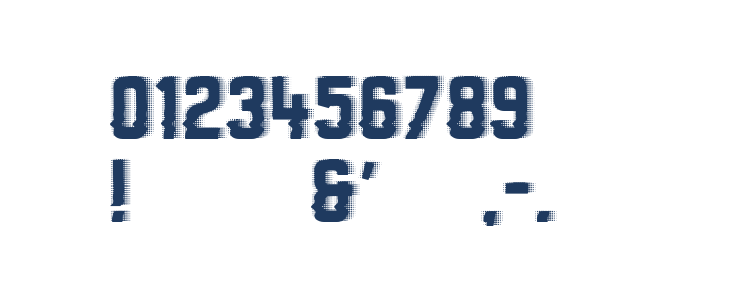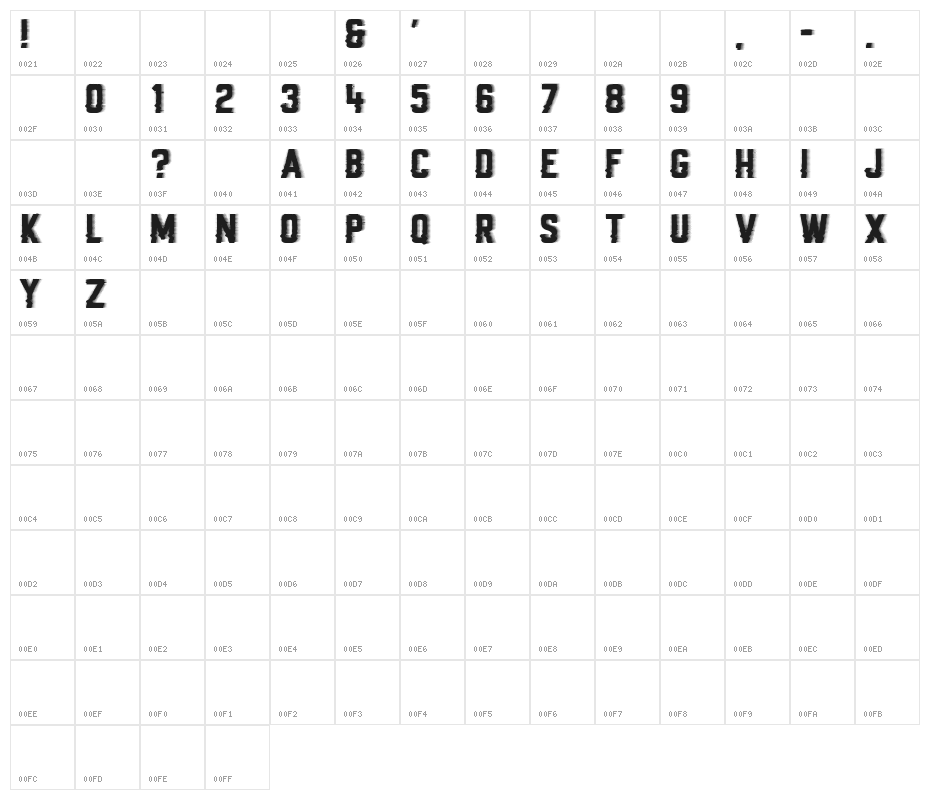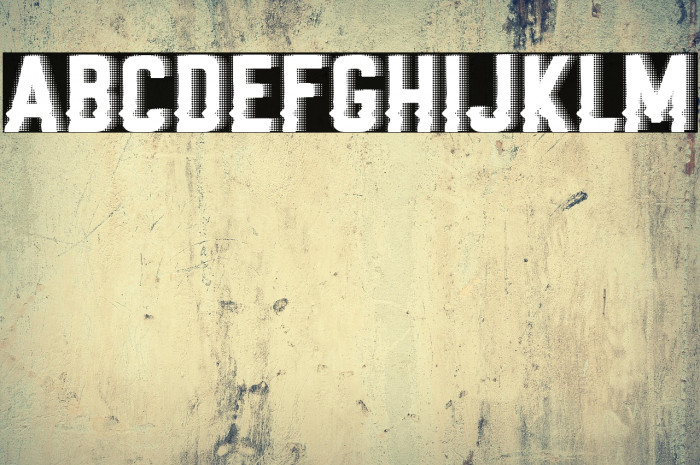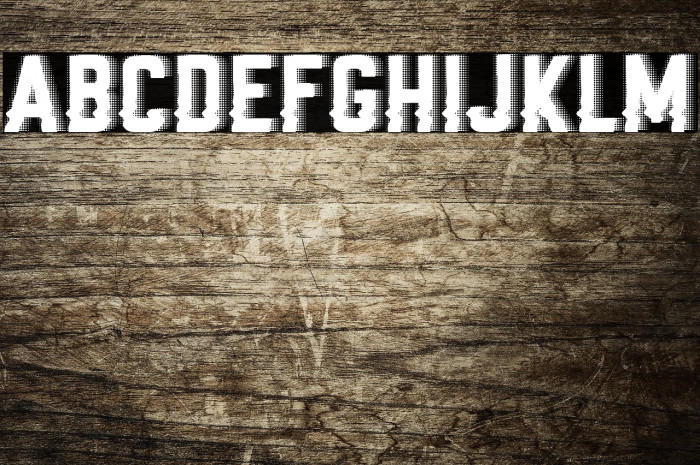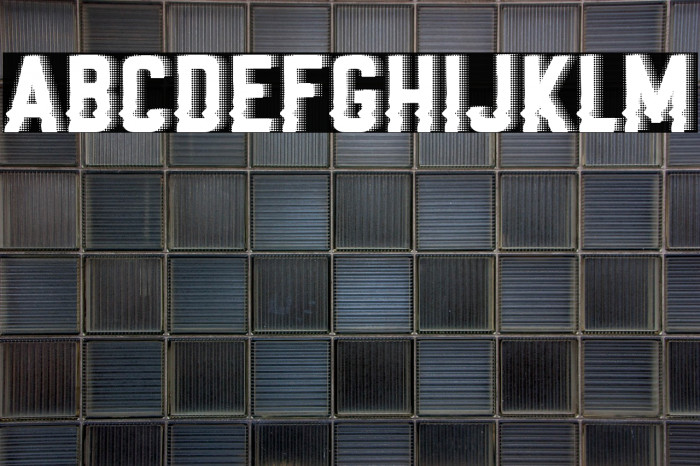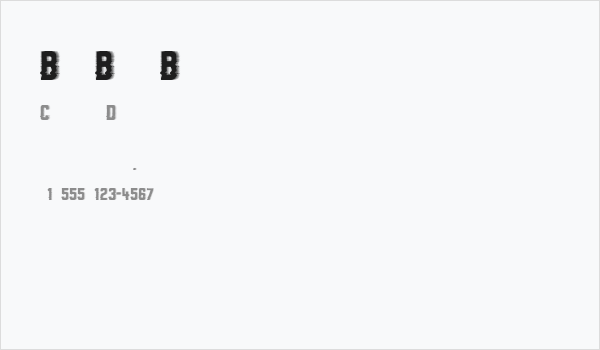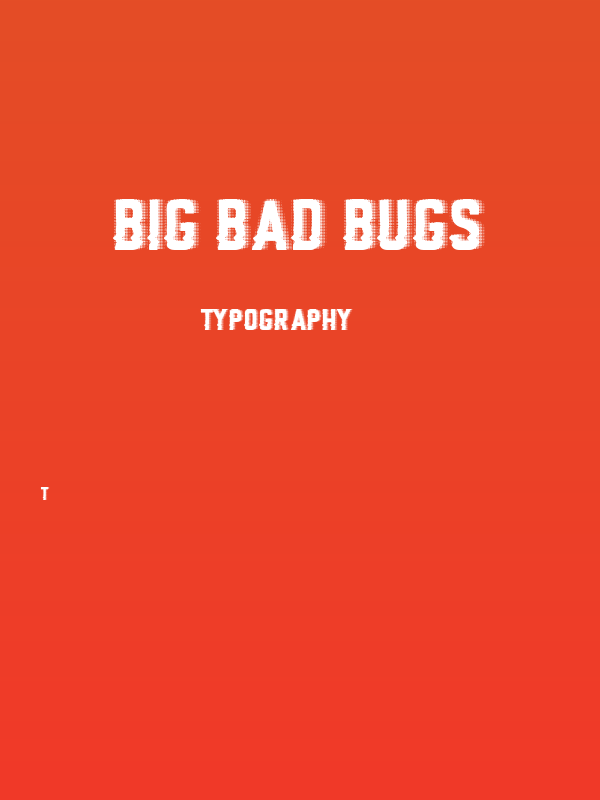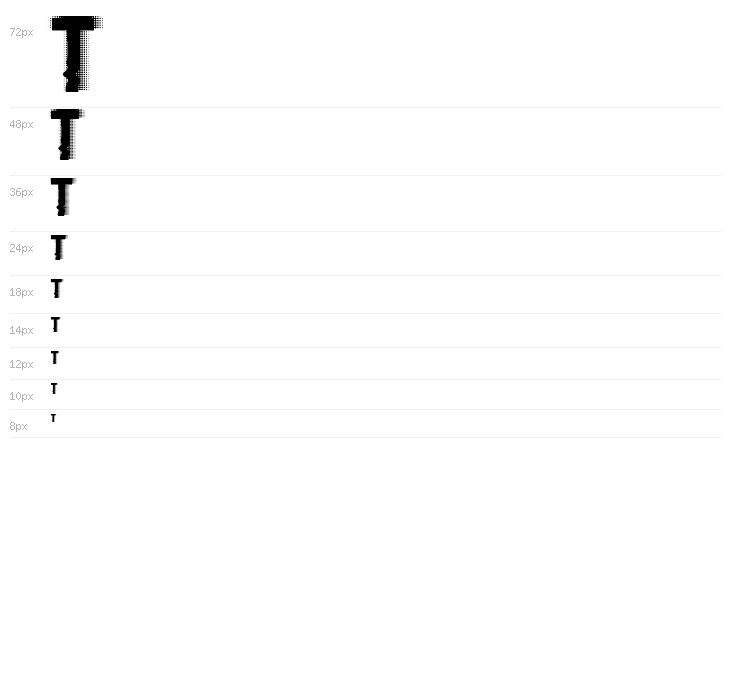
Big Bad Bugs Font
Big Bad Bugs Description
This font features a bold and striking design with a distressed, textured appearance that gives it a rugged and edgy feel. The uppercase letters are uniformly bold, with a slight stencil-like cutout effect that adds to its industrial aesthetic. The numbers and special characters maintain this boldness and texture, ensuring consistency across all characters. The font's unique style makes it stand out, with a heavy emphasis on visual impact, making it ideal for attention-grabbing designs.
| Proposed Projects | Ideal for poster designs, album covers, branding for edgy products, or any project requiring a bold, impactful typeface. |